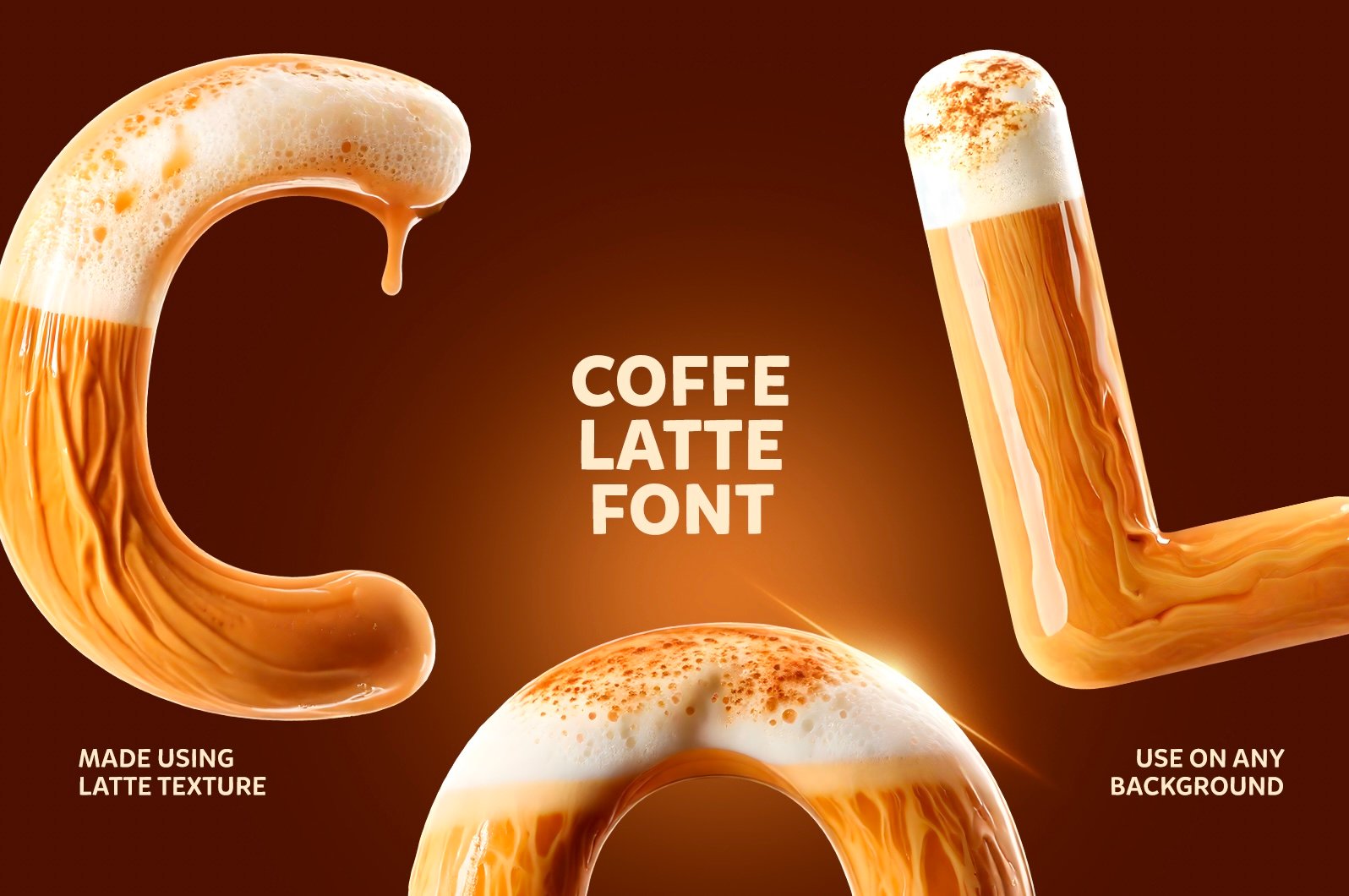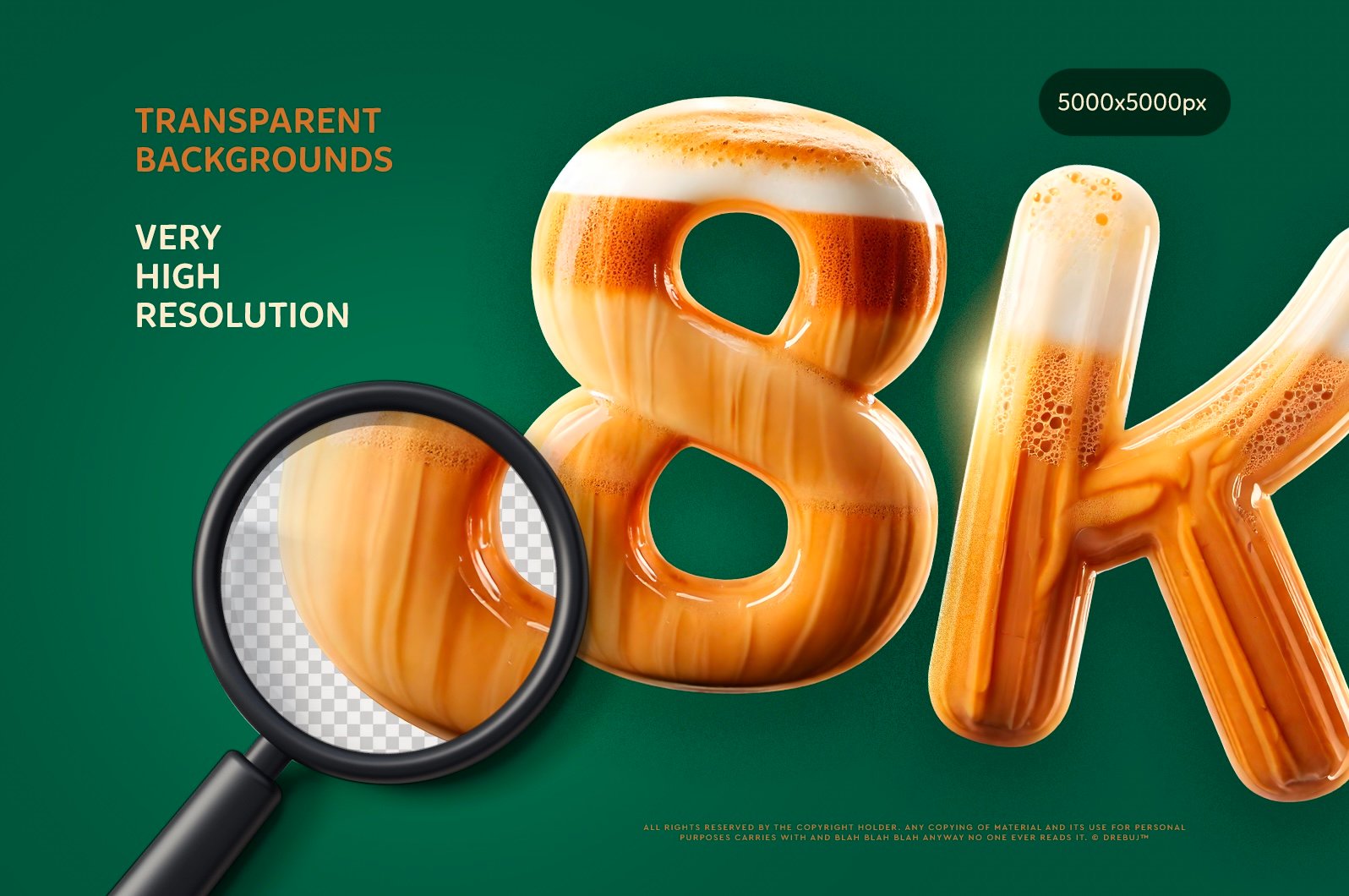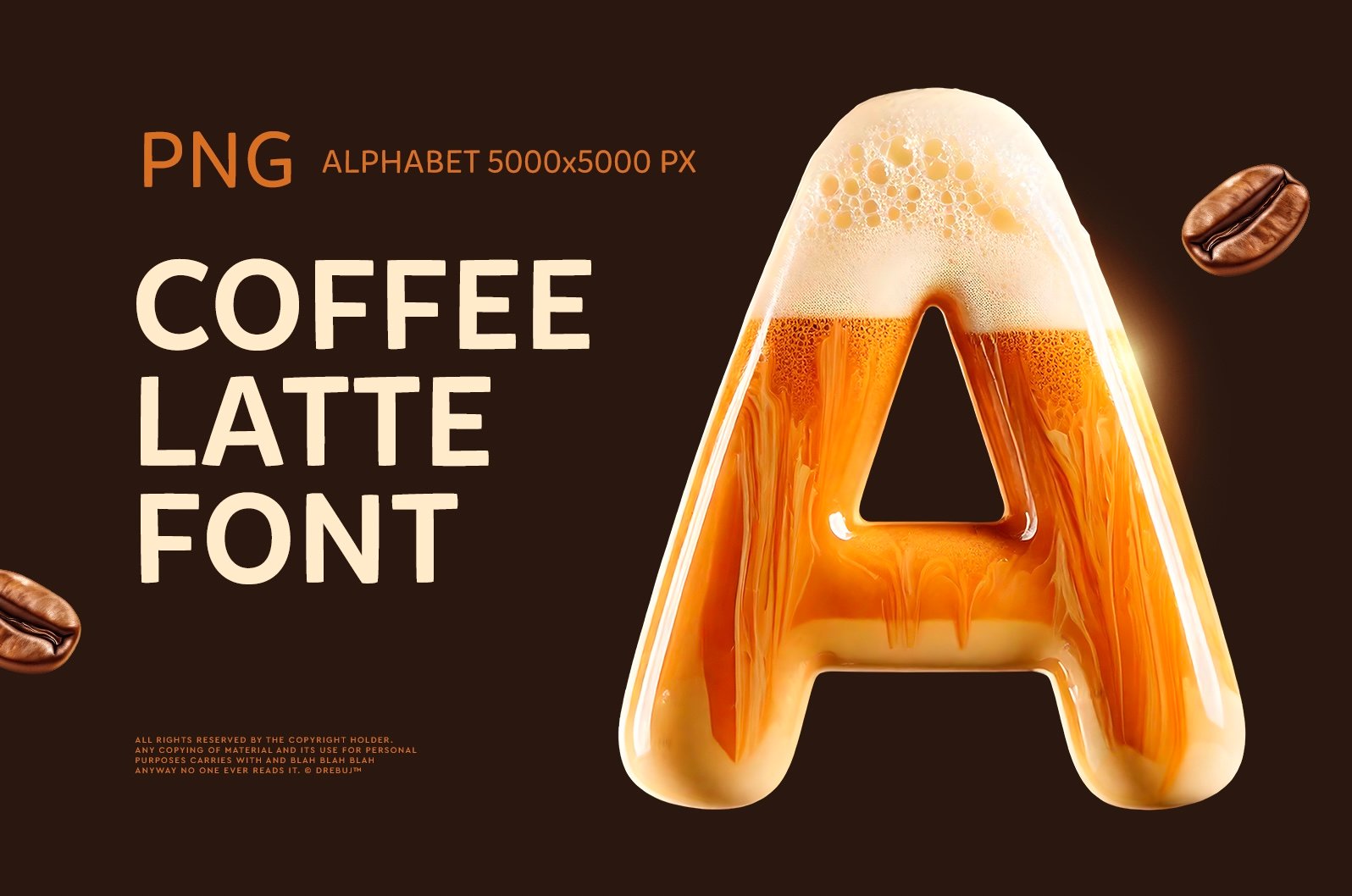
Coffee Latte Font: Geometric 3D Alphabet PNG
An entire alphabet of Coffee Latte Milk letters with transparent background.
THIS IS NOT A FONT. This is a very high-quality 3d PNG font of Milk Latte Coffee texture letters.
• You Can use shadows on every letter and number